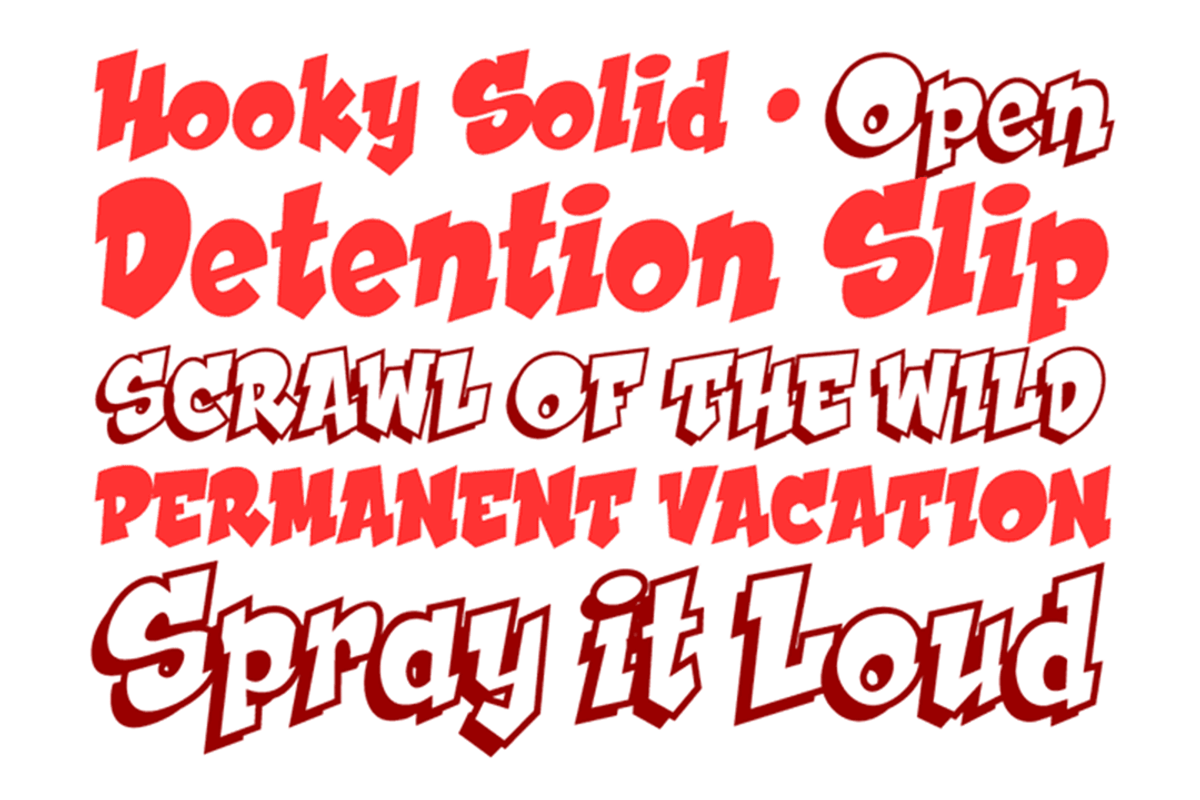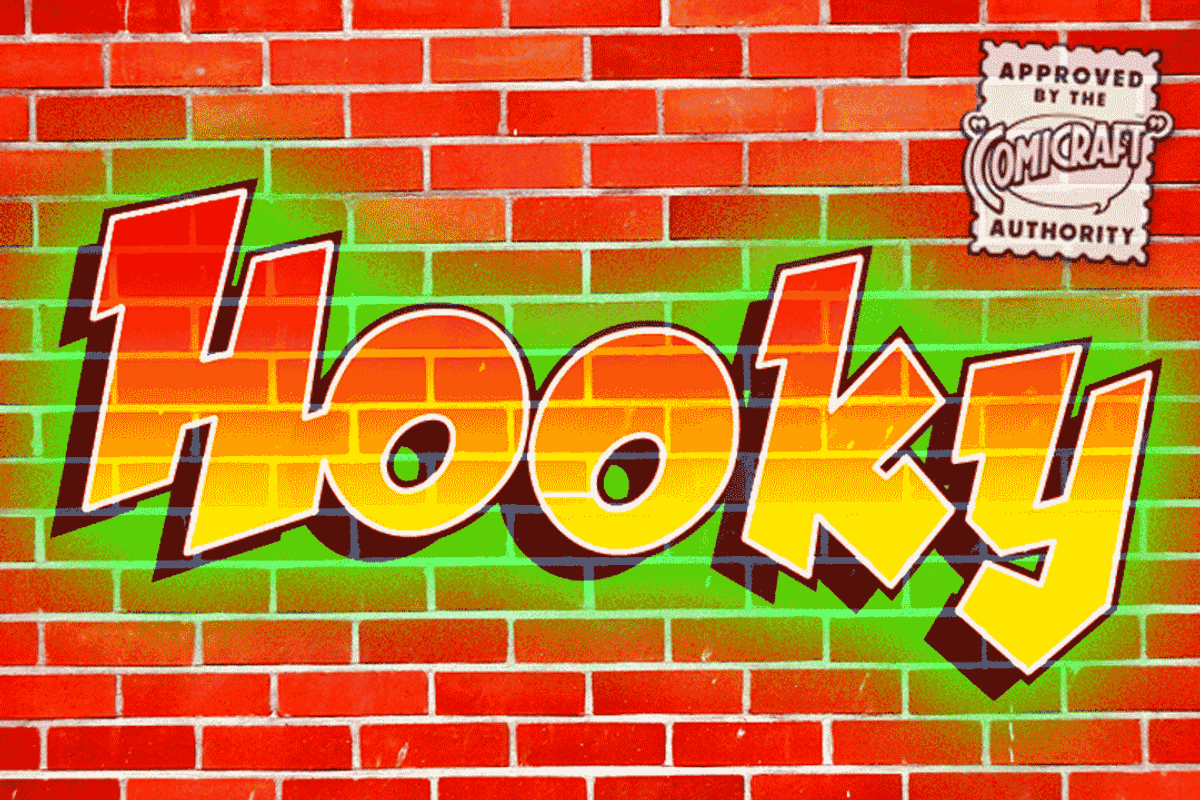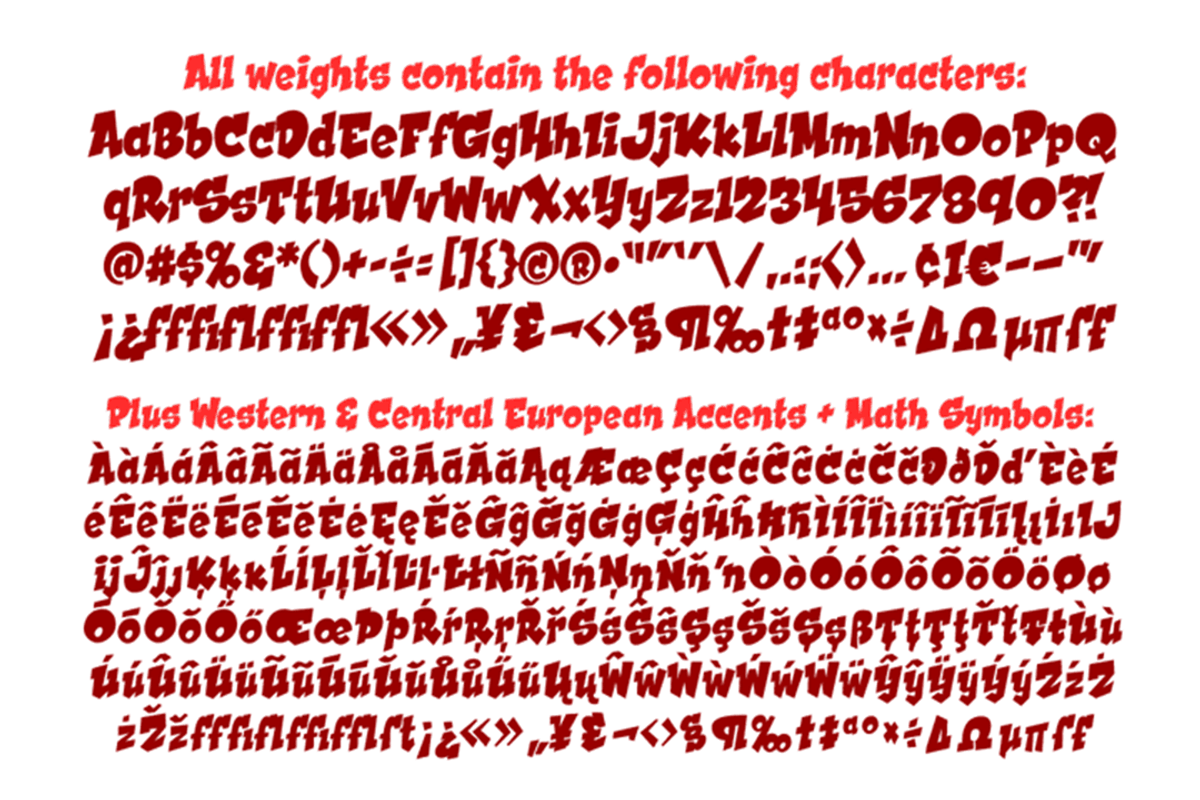
Hooky
Originally created for Sound Effects in Marvel’s GHOST RIDER 2099, our spraycan stylish HOOKY font has just the right Scrawl of the Wild for graph-iti enthusiasts everywhere -- and they wash right off with just a little splash of ‘delete’.
Spray it, don't Say it!